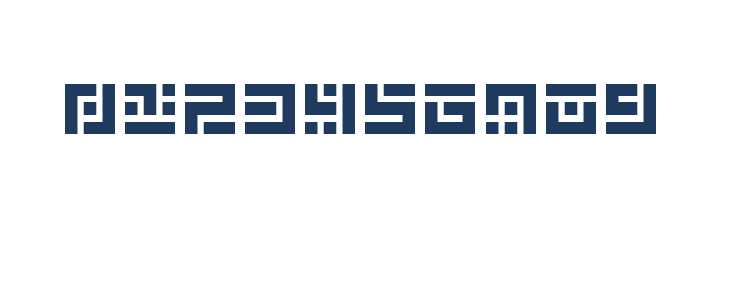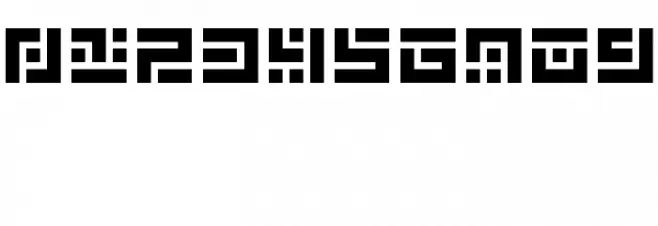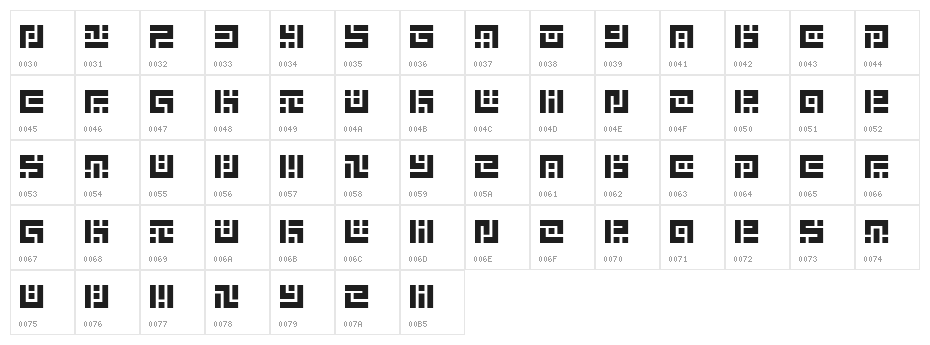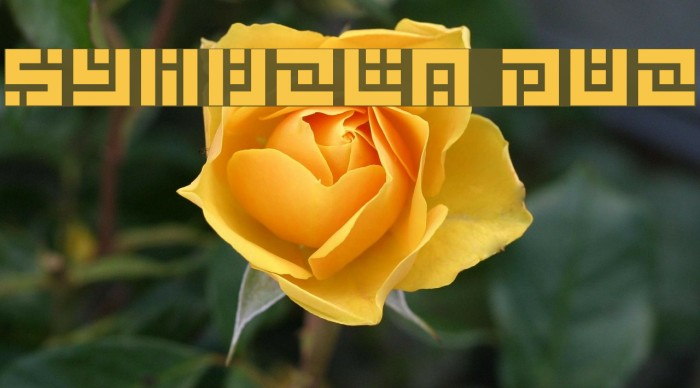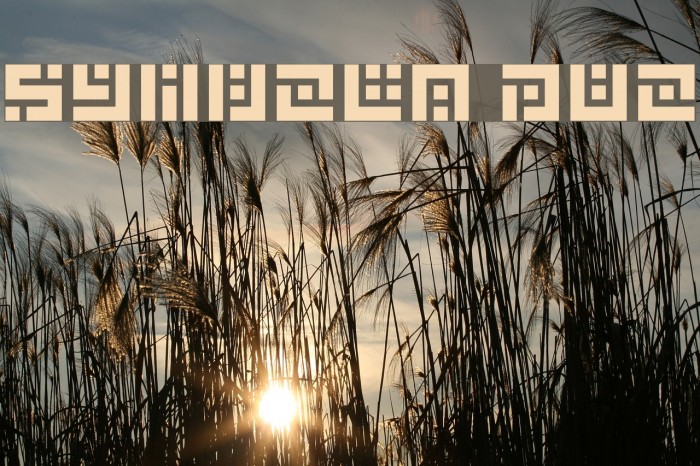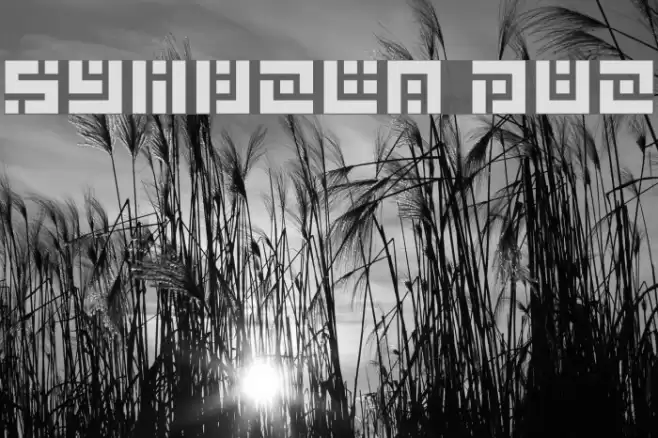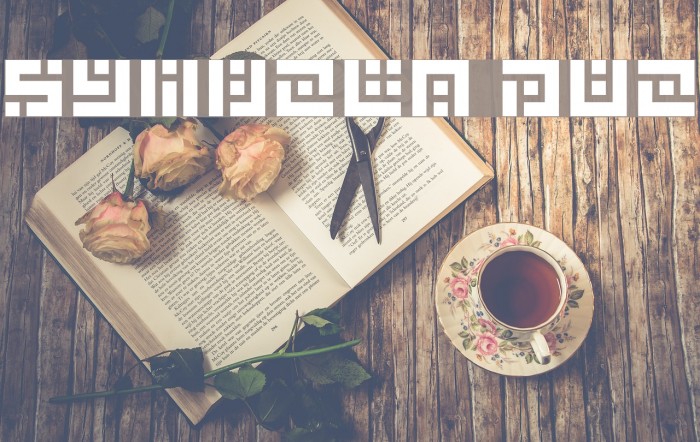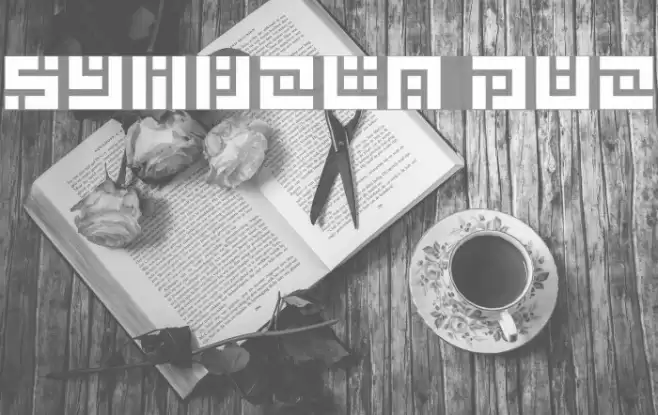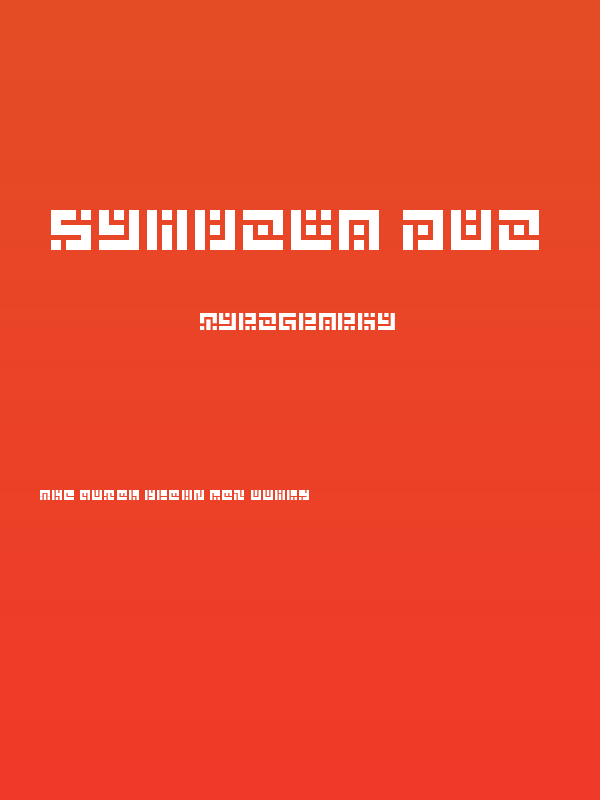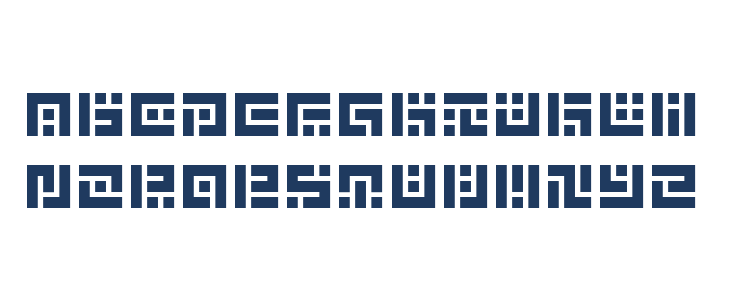
Symvola Duo Font
Symvola Duo Description
This font features a highly geometric and blocky design, characterized by its bold, square shapes and intricate patterns within each character. The letters are constructed with a series of straight lines and right angles, creating a maze-like appearance. The font's unique style is reminiscent of digital or futuristic aesthetics, making it stand out with its complex and decorative elements. Each character is distinct, yet they all share a cohesive design language that emphasizes symmetry and uniformity. The font is best suited for creative and modern projects where a strong visual impact is desired.
| Proposed Projects | Ideal for video game titles, sci-fi movie posters, tech branding, and futuristic designs. |